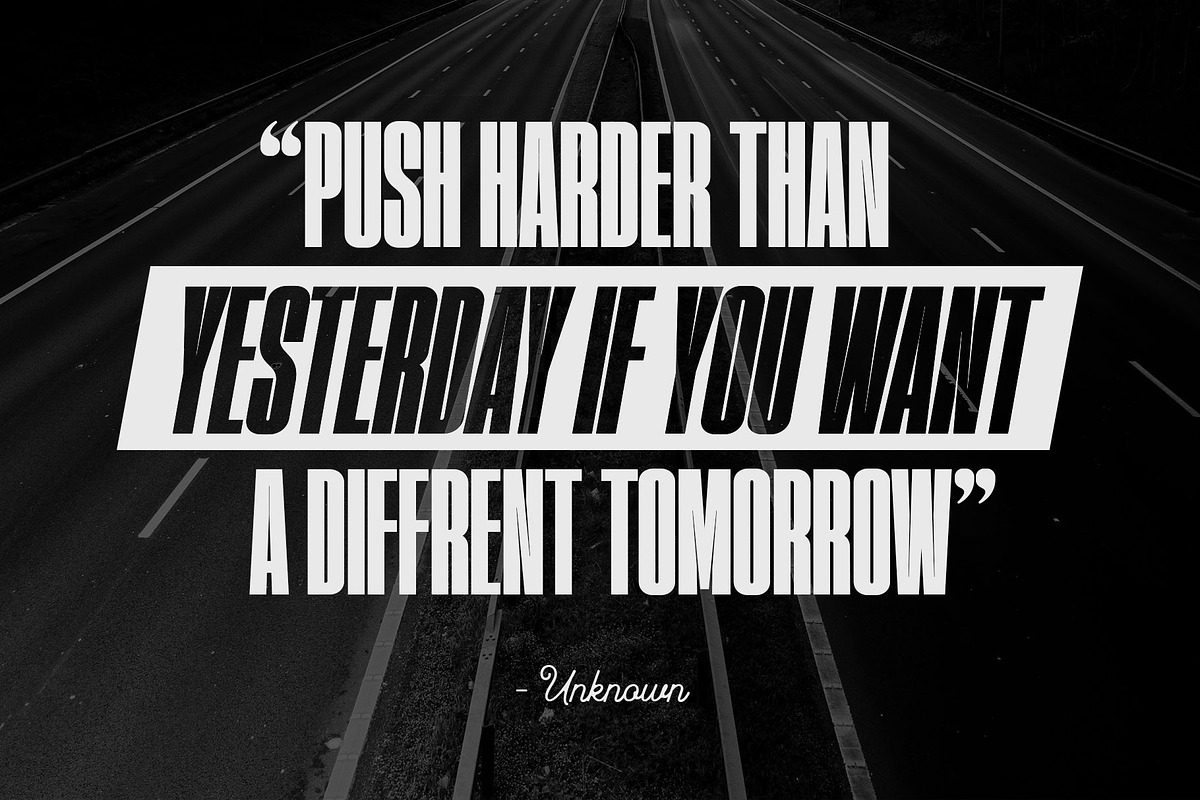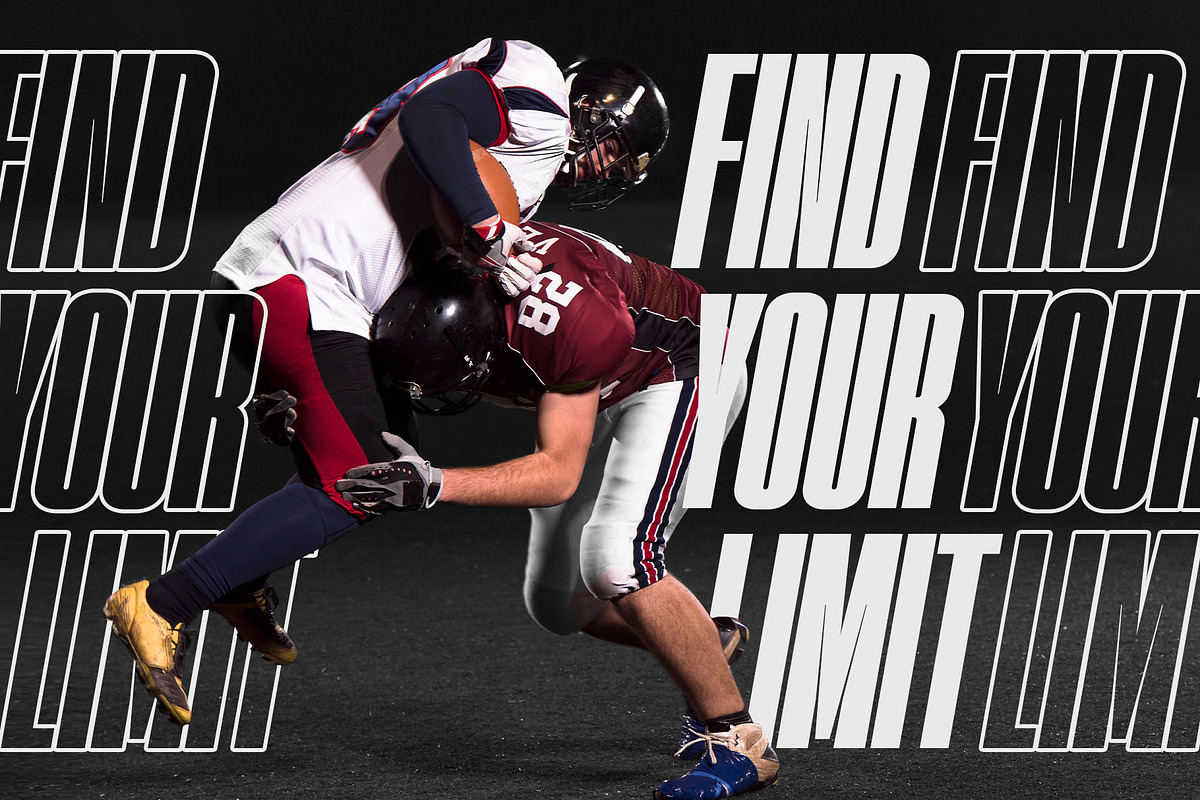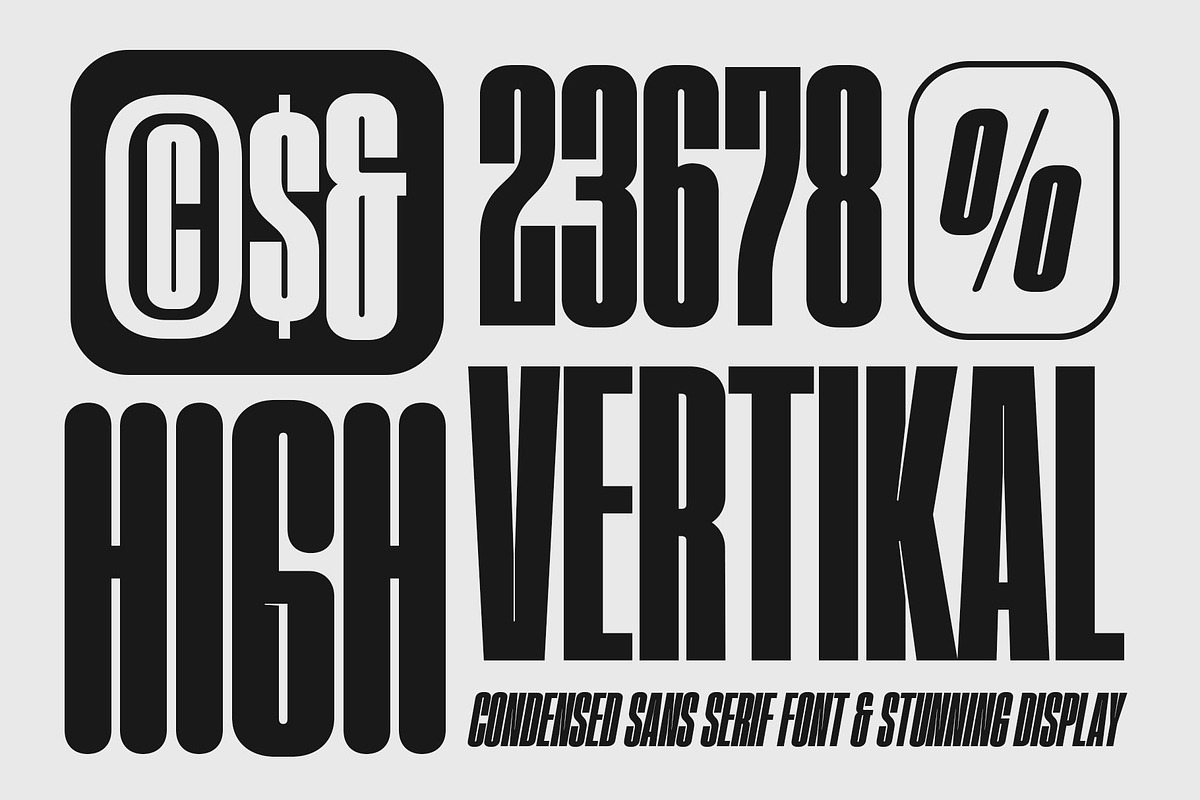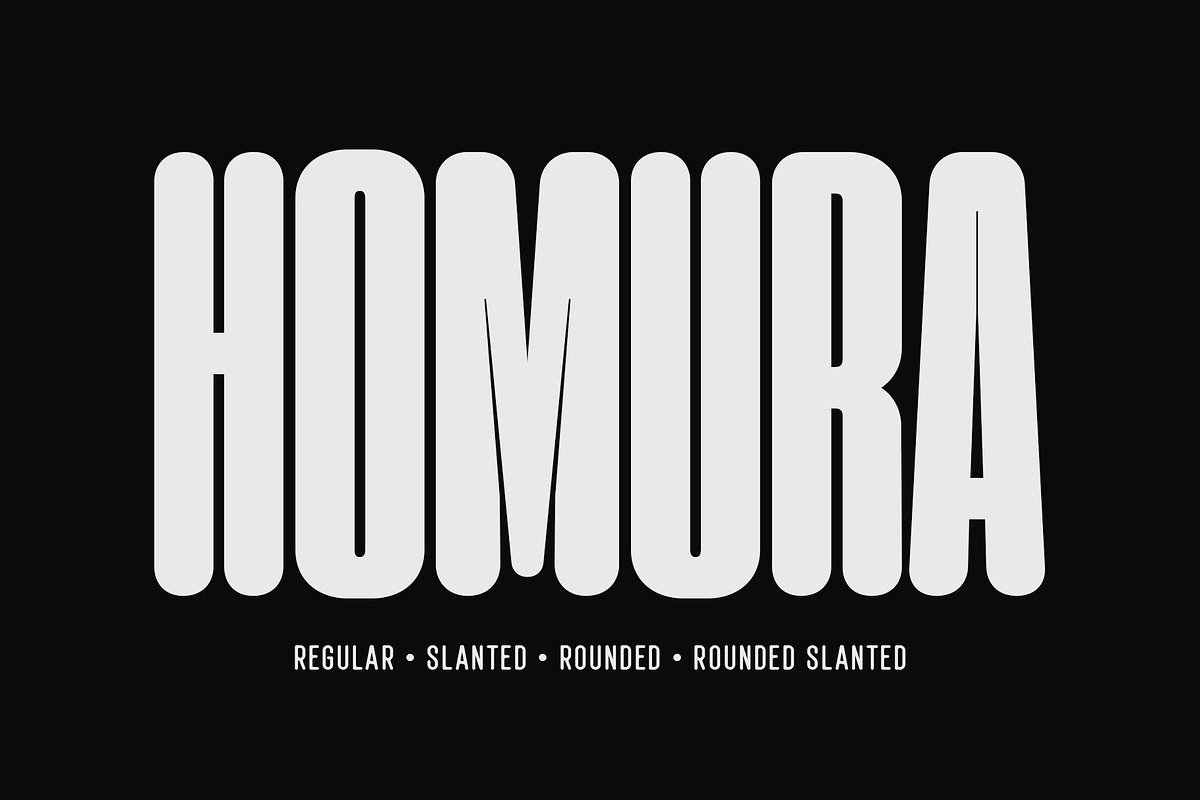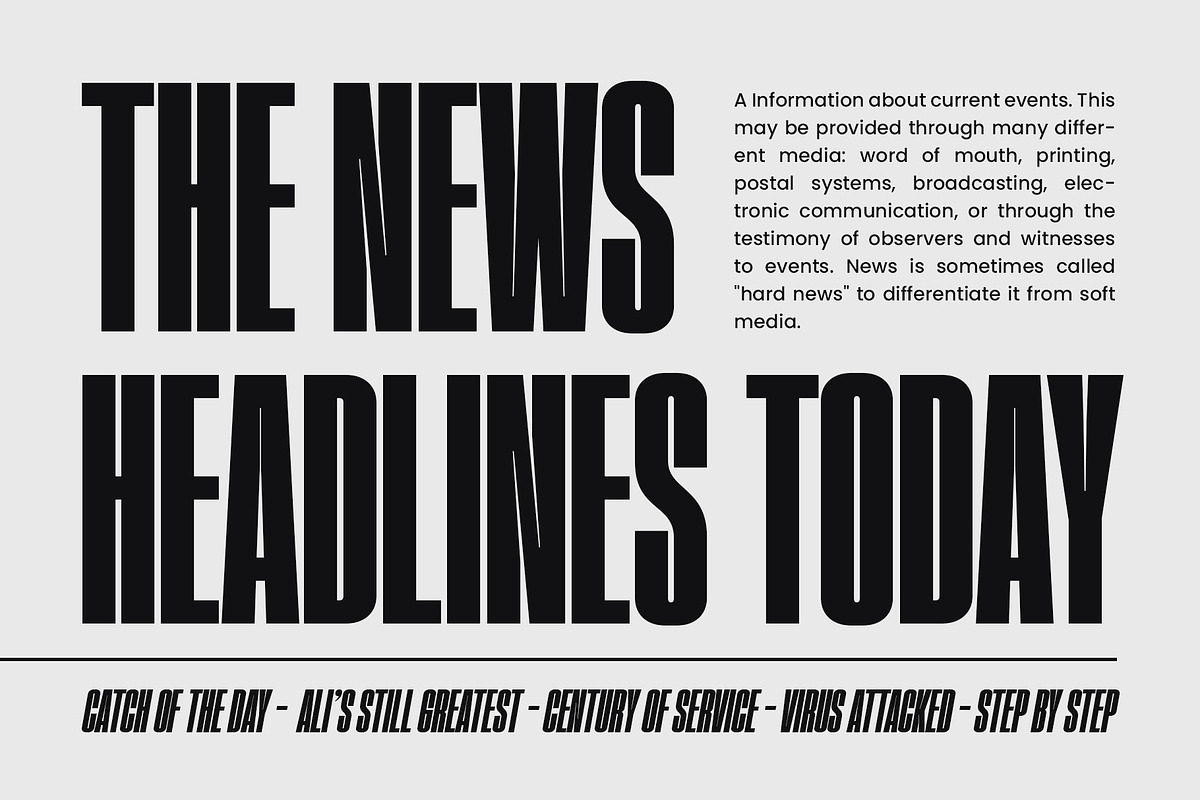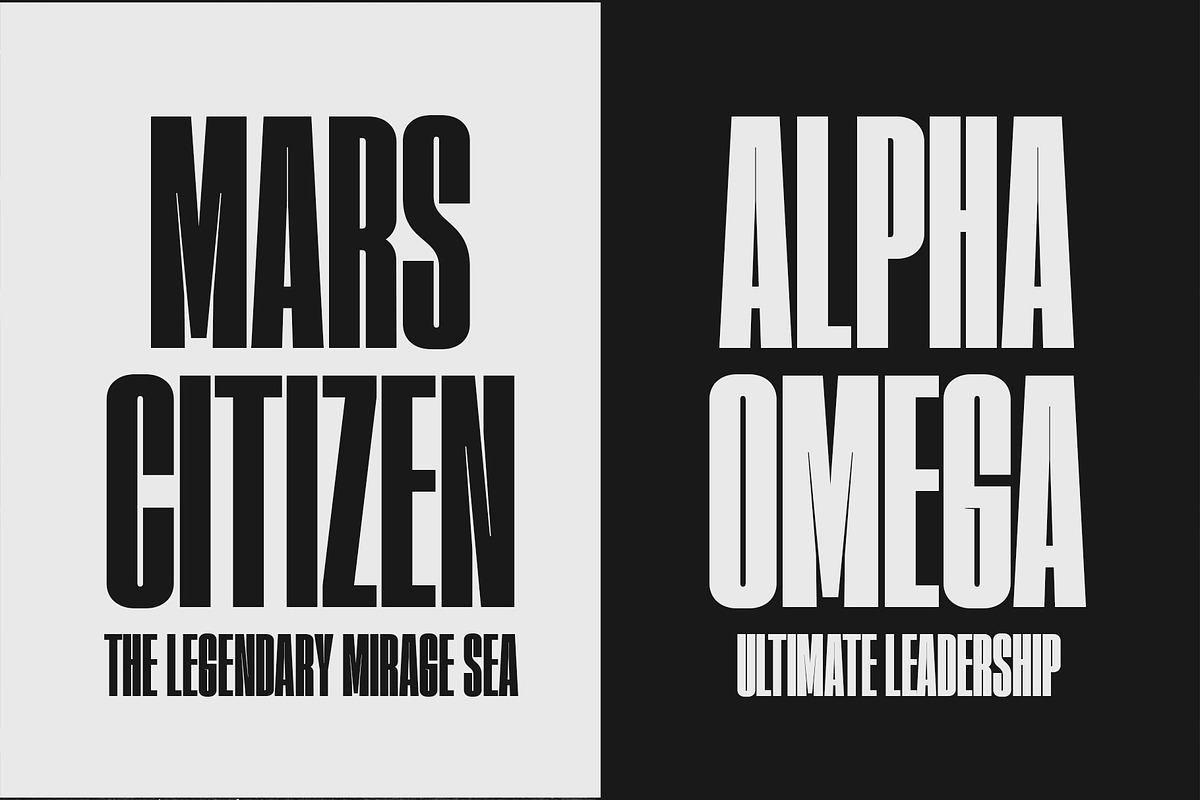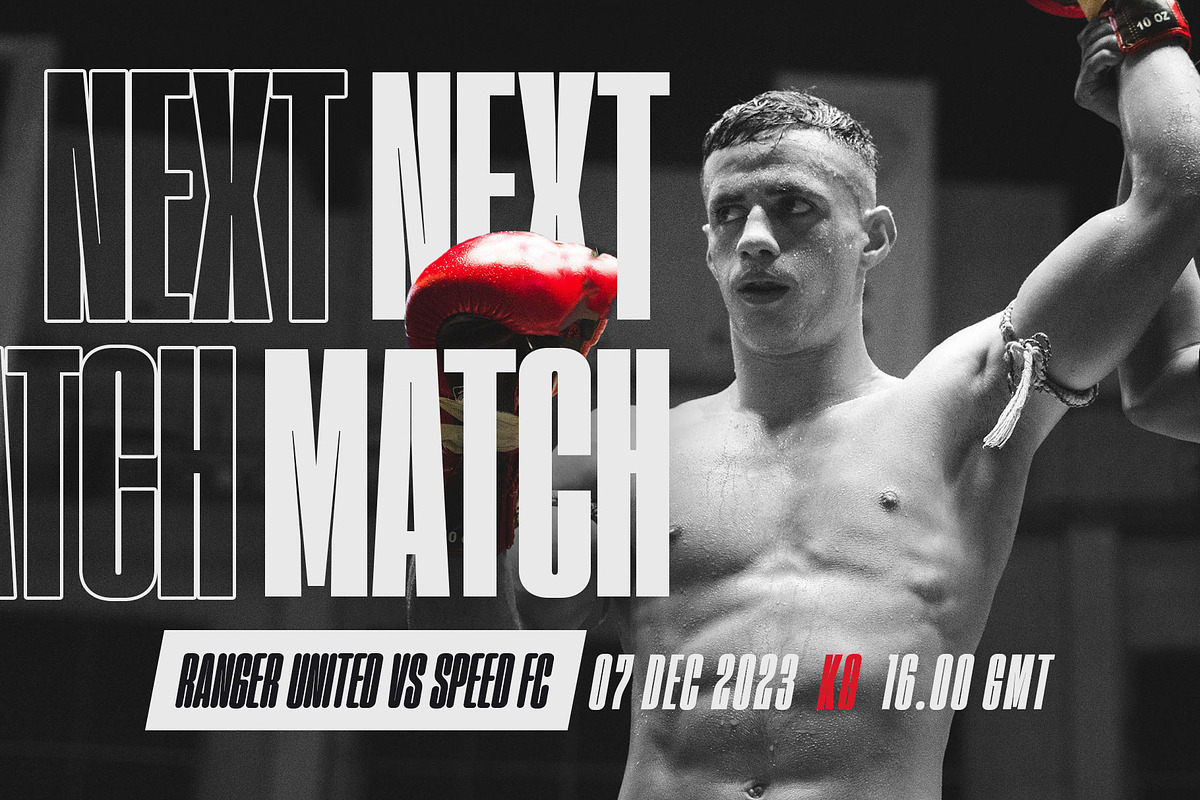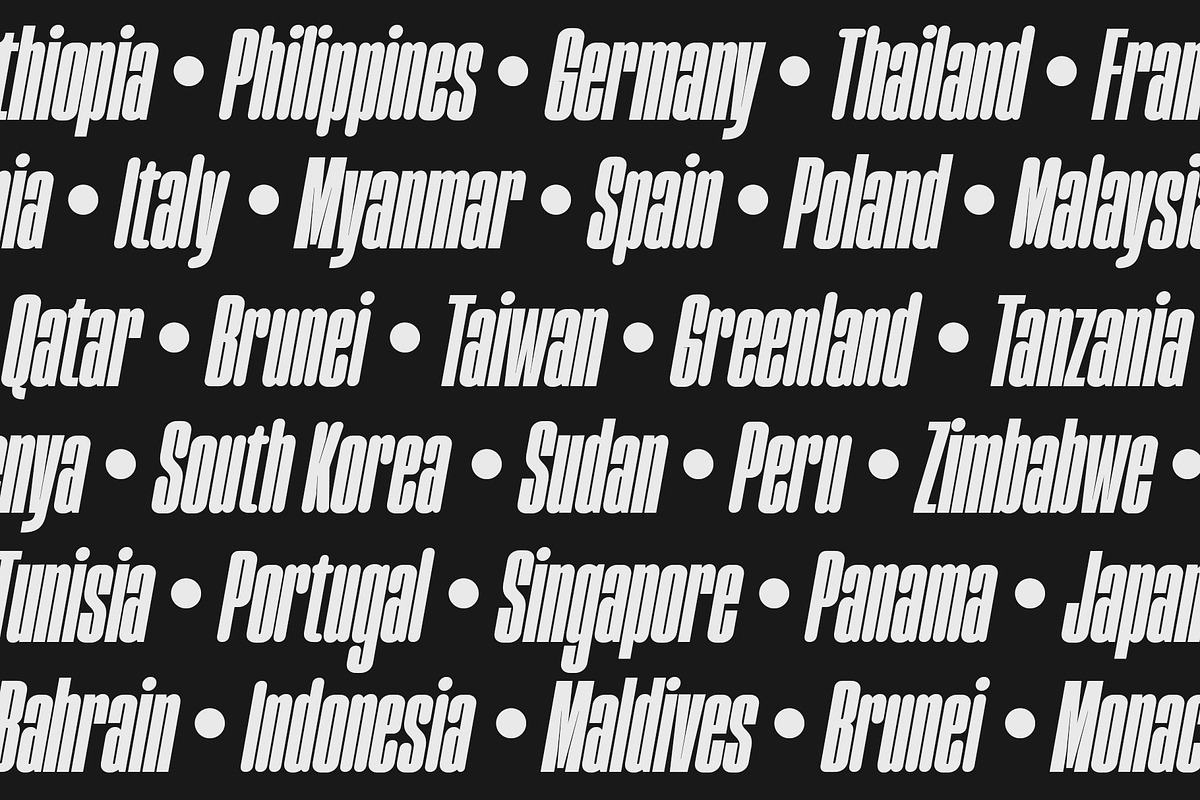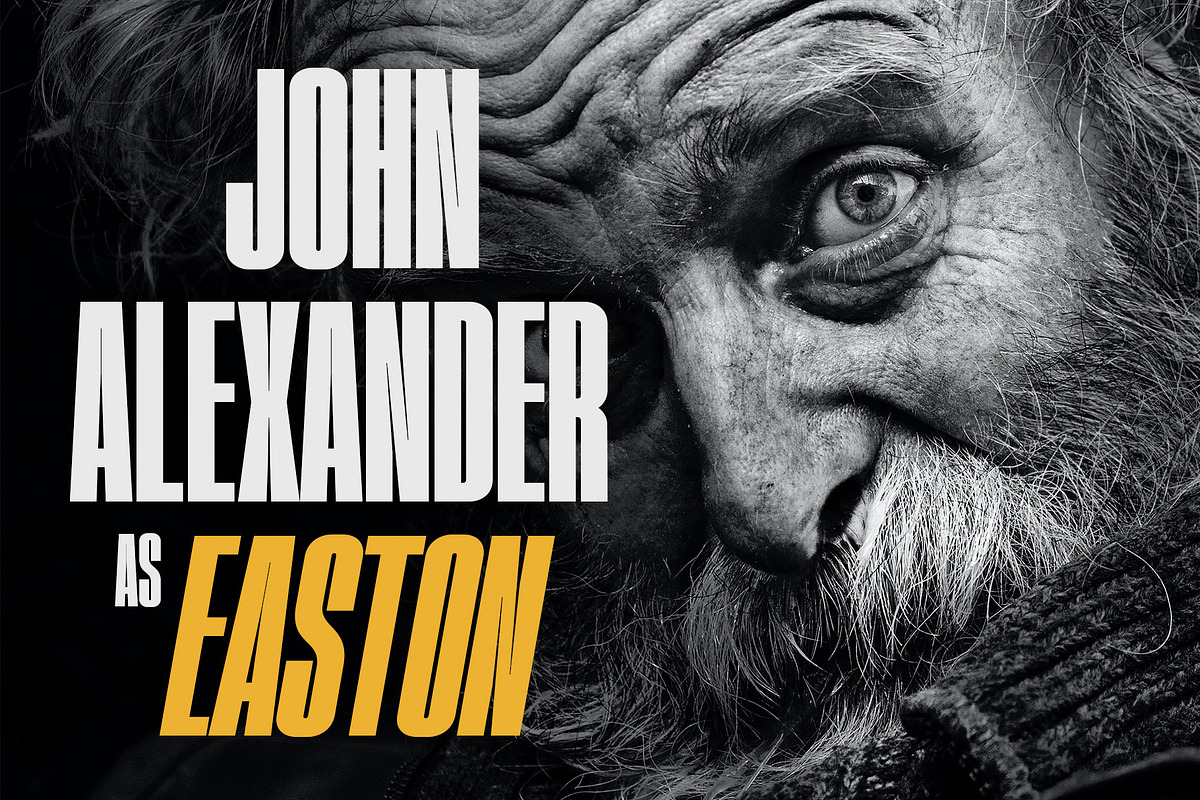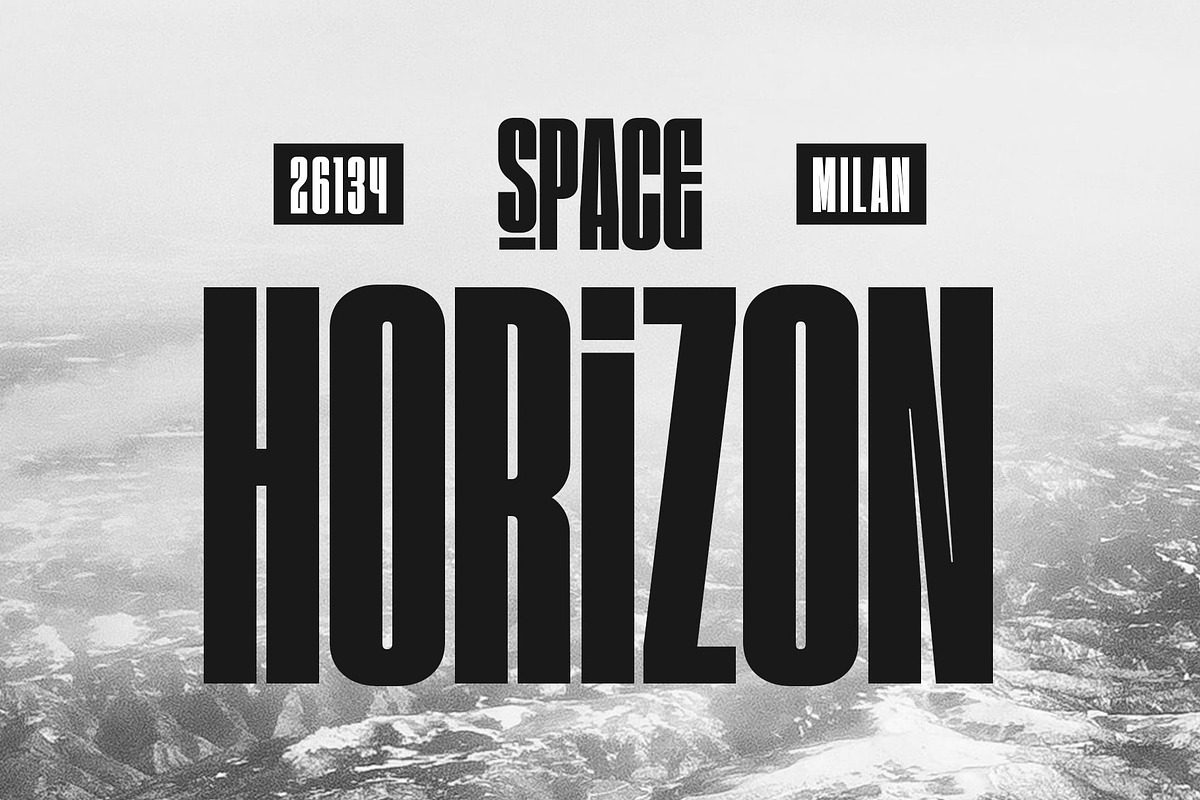
Homura - Condensed
Homura is a sans-serif display font that is inspired by newspaper headlines and modern typography. It comes in four styles: regular, rounded, slanted, and slanted rounded. This font is condensed, bold, and elegant, with a tight design that includes ink-traps in some sharp corners, giving it a fancy, fun, and minimalist impression. Flexible for various design themes.
With its condensed and elegant look, Homura is perfect for creating high impact logos, headlines, and quotes. Homura's versatility makes it a great choice for any project. This font is perfect for large displays or headlines, such as logos, short quotes, stickers, label and posters.
- Symbols & multilingual
- Stylistic alternates